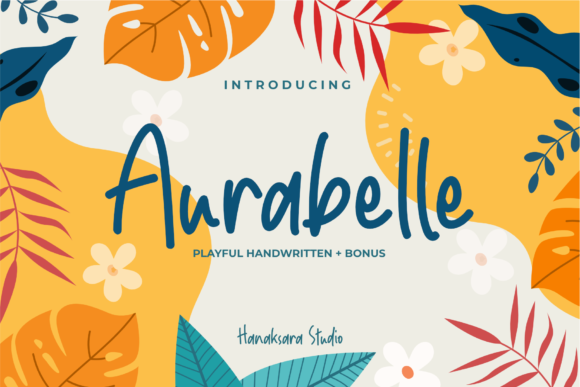
The Sweet Spot: Discovering Aurabelle Font
I still remember the design project that led me to Aurabelle Font. I was working on a whimsical craft project, aiming to create an invitation that felt both personal and playful. As I scrolled through font options, I hit a roadblock: nothing seemed quite right. That was until I stumbled upon Aurabelle. Its charming, handwritten style instantly resonated with my vision, and I knew I’d found the perfect fit. If you’re a designer, crafter, or creative hobbyist looking for a font that adds a touch of warmth and personality to your projects, you’re in the right place.
An Honest Review of Aurabelle Font
Aurabelle Font has quickly become a go-to in my design toolkit, but like any font, it has its strengths and a few minor quirks.
• ✨ Sweet and Friendly Style: Aurabelle’s natural, unique look makes it incredibly versatile for various designs.
• ✅ Highly Legible: Despite its handwritten nature, Aurabelle remains clear and easy to read, even at smaller sizes.
• 🌈 Emotional Connection: It adds a warm, personal touch to projects, making them feel more approachable and engaging.
While Aurabelle shines in many areas, there are a couple of things to keep in mind:
• 🤔 Limited Formality: Given its friendly and casual vibe, Aurabelle might not be the best fit for projects requiring a more formal or corporate tone.
• ⚠️ Overuse of Embellishments: While Aurabelle’s stylistic alternates and glyphs are beautiful, using them too liberally can make text harder to read or look cluttered.
The Story Behind Aurabelle Font
Aurabelle was designed with the intention of capturing the warmth and spontaneity of handwritten text. Its creator aimed to produce a font that felt both approachable and unique, suitable for a wide range of creative projects. While the exact backstory might be shrouded in mystery, it’s clear that Aurabelle’s design was guided by a passion for beautiful, personal typography.
Q: Is Aurabelle Font suitable for body text?
A: While Aurabelle excels in headlines and short paragraphs, its readability for long-form body text may vary depending on the size and context. It’s best used for emphasis or in smaller doses.